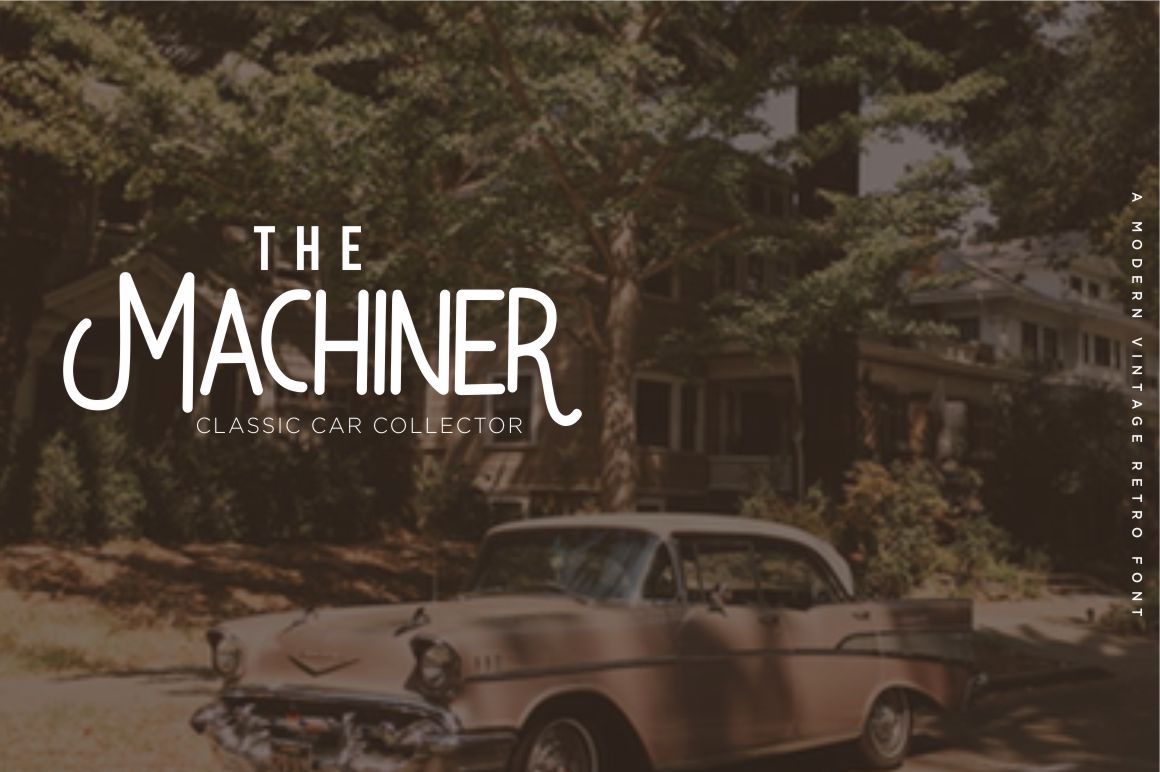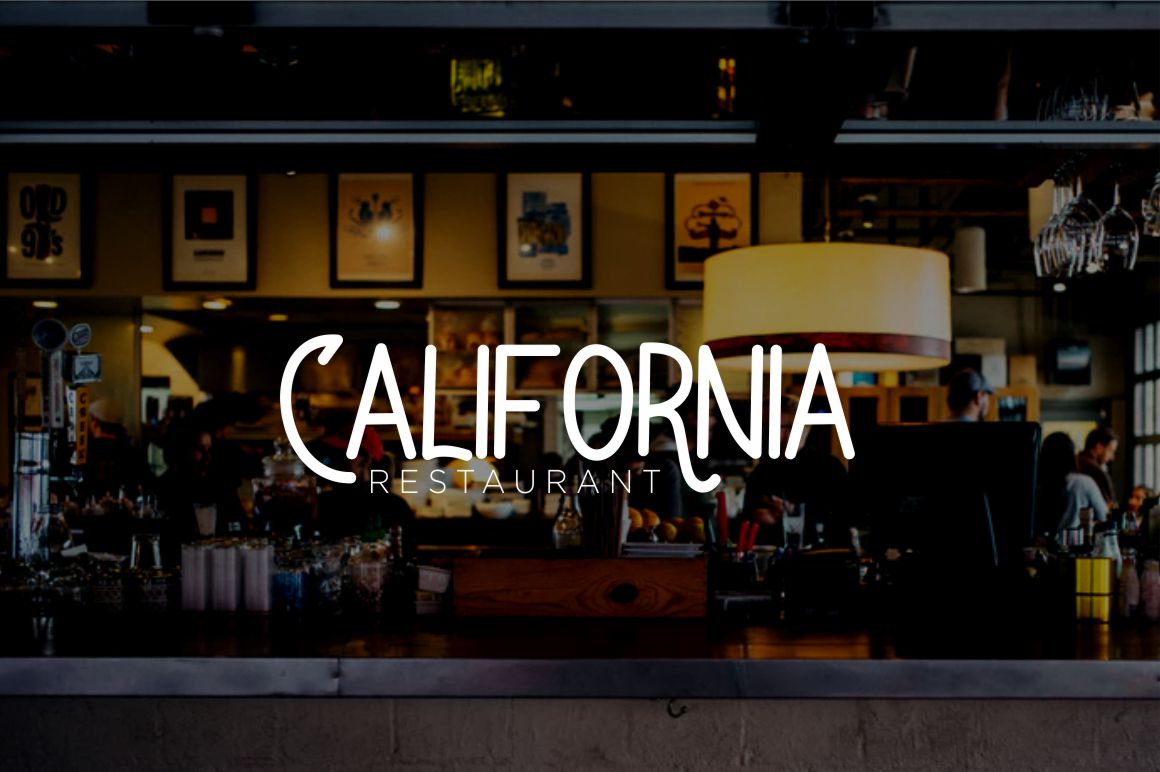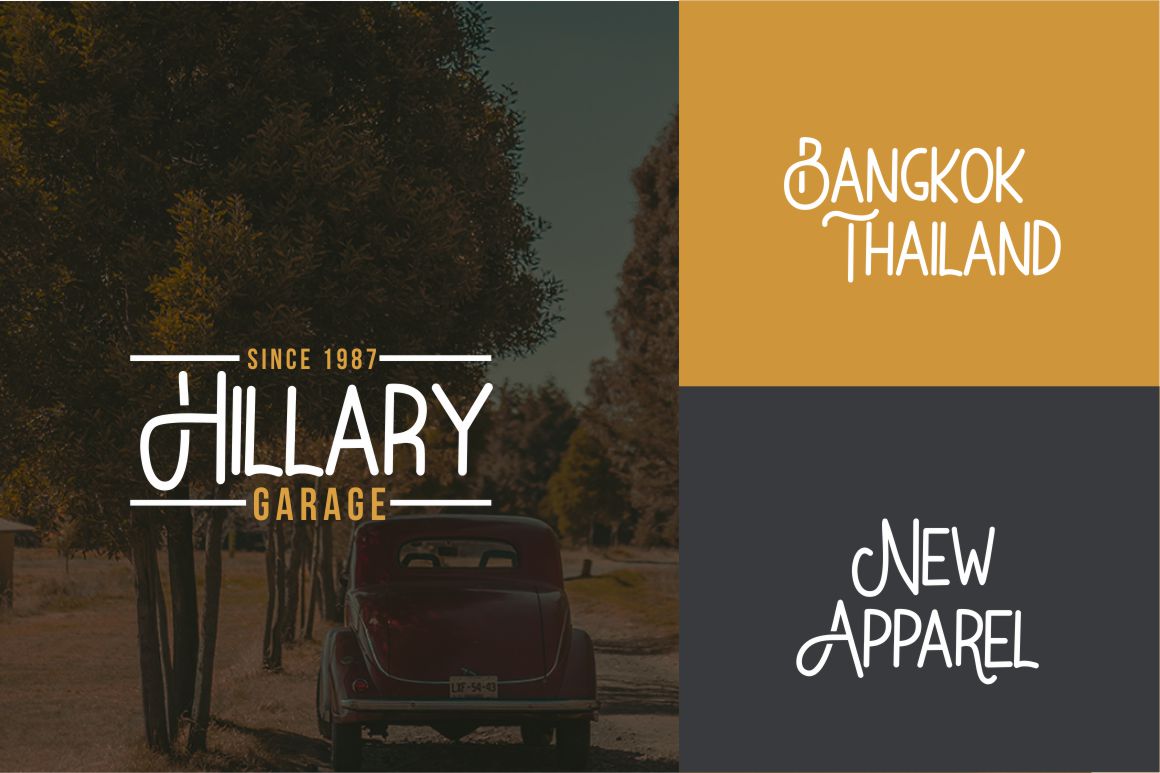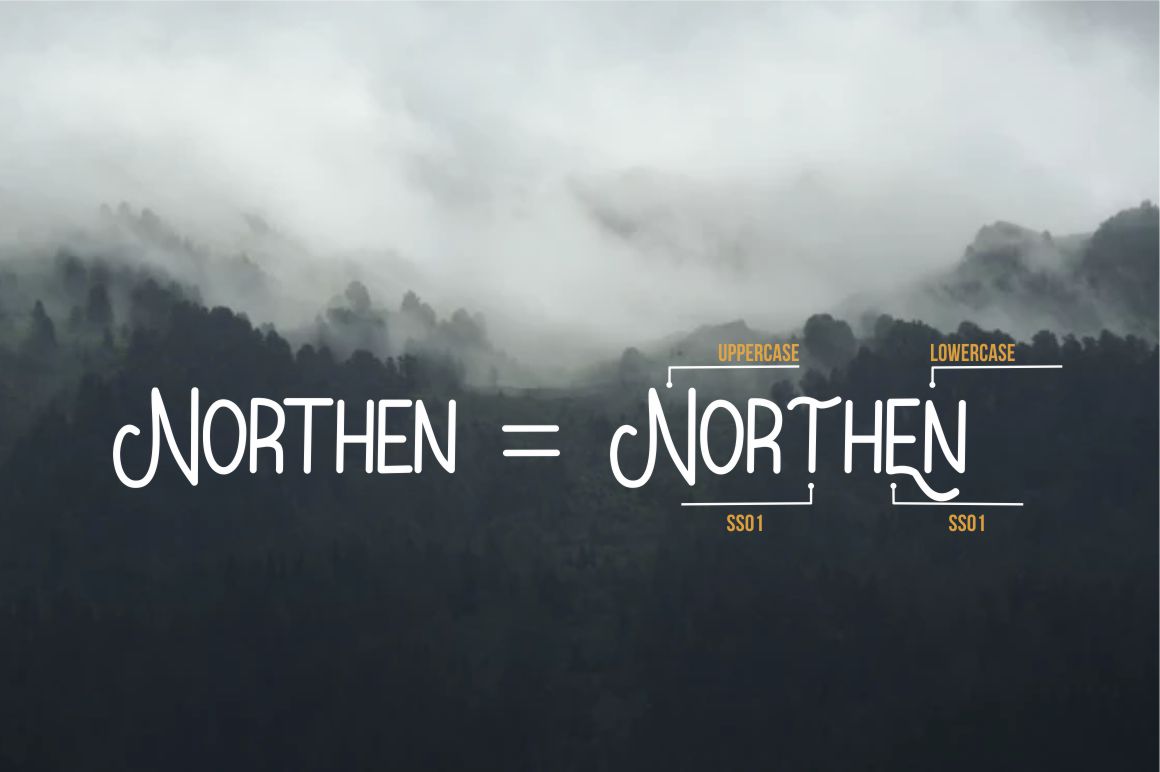
Bataler Free Font
Bataler Free Font is a vintage retro font with elegant and professional style, perfect for adding some romance and charm to your designs. This free typeface was designed by a talented Eldertype Studio. If you like it don’t forget to check out the full version.